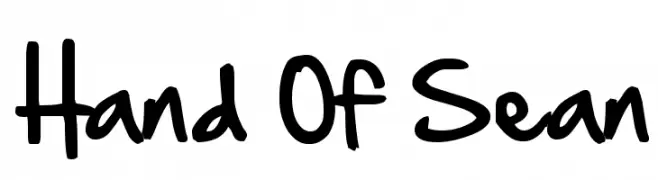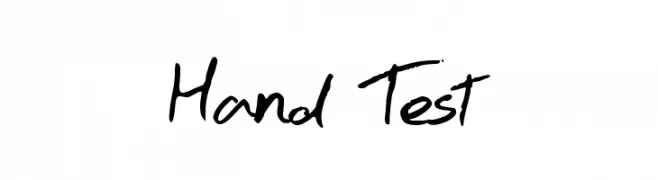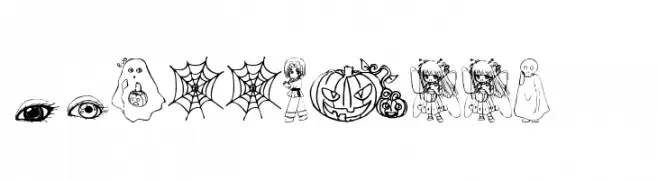
Whimsical Halloween icon font with detailed spooky illustrations.
A bold, playful handwritten font with a casual and friendly style.
A dynamic, expressive handwritten font with fluid strokes.